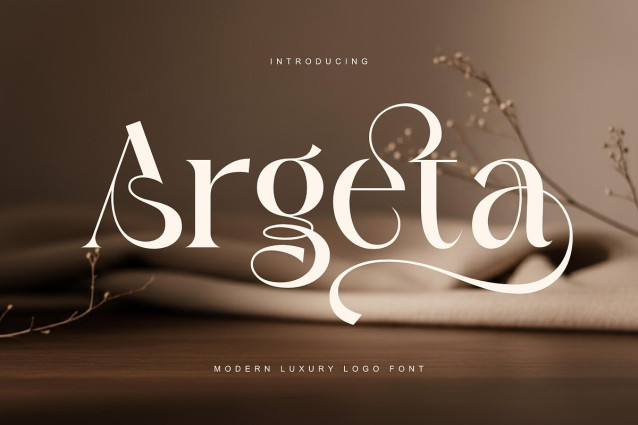
Argeta Font
Argeta Font is a modern luxury serif typeface designed to bring an elegant, premium, and artistic touch to every project. Featuring refined letterforms and beautifully flowing ornamental swashes, Argeta adds a sophisticated character to logos, branding, and high-end visual design.
Each curve is crafted with precision to deliver a stylish and distinctive look, making Argeta the perfect choice for designers who want to create a strong, elegant, and memorable brand identity.